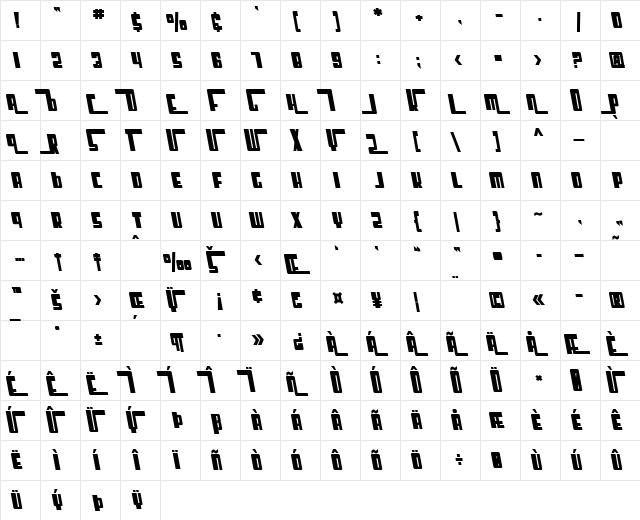
SF Cosmic Age Bold Oblique Font Preview
Design Context for SF Cosmic Age Typeface
SF Cosmic Age is a composed and adaptable typeface that performs quietly and consistently across a wide range of design contexts. The dynamic lean of this cut emphasises speed and emphasis in any layout. The heavy weight commands attention and anchors typographic hierarchies.
Pro Tip: Try SF Cosmic Age for annotation and caption copy alongside an upright companion — the contrast in angle creates a dynamic but ordered typographic system.